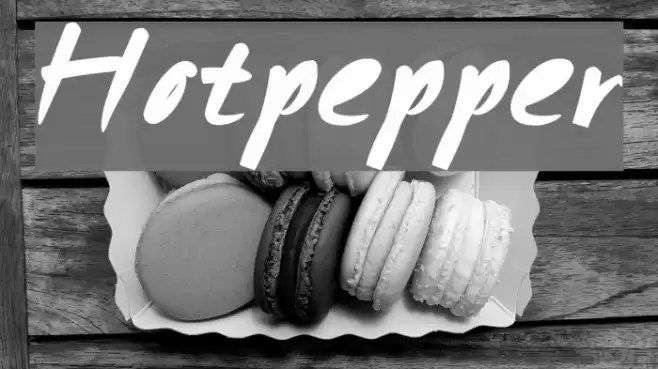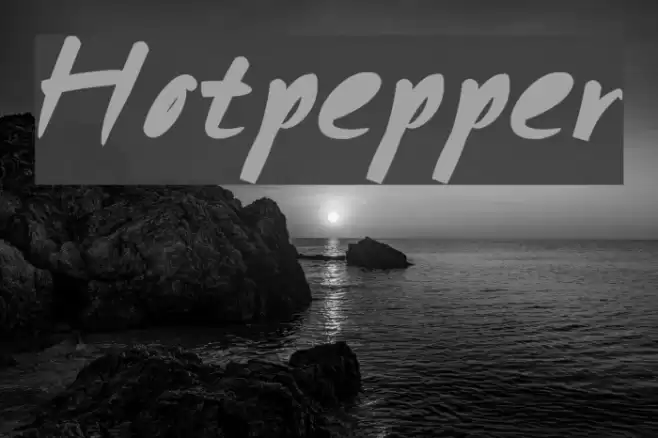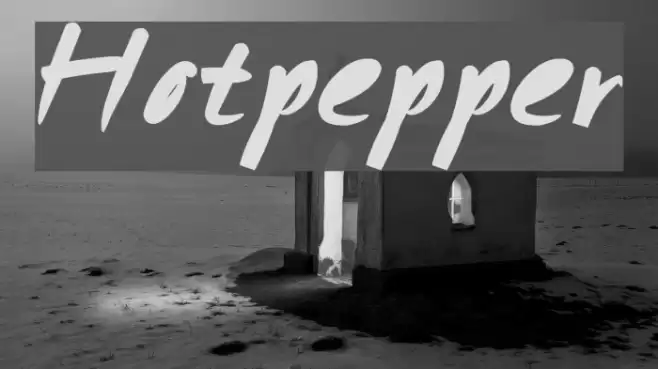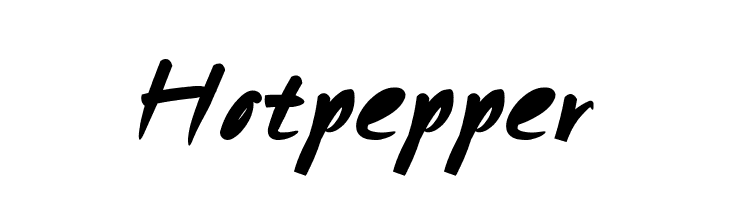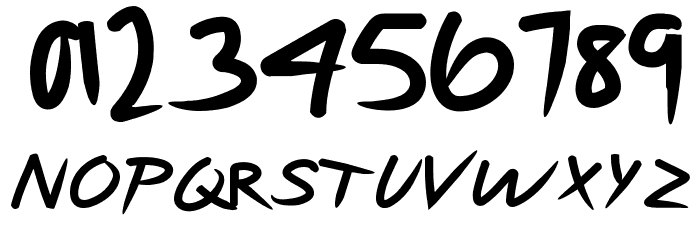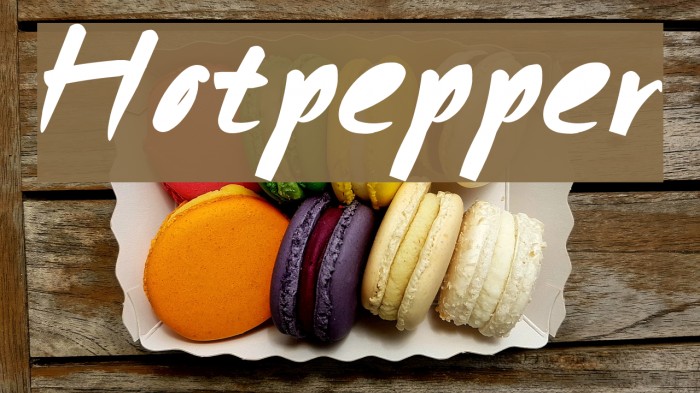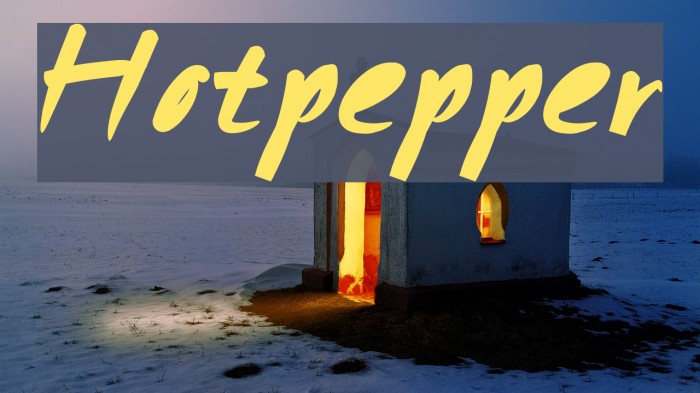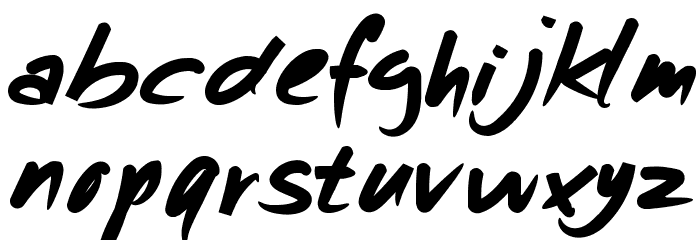
Hotpepper Font
Hotpepper Description
This font features a dynamic and energetic script style, characterized by its fluid and cursive letterforms. The strokes are bold and expressive, giving a sense of movement and flair. Each character is uniquely crafted with a slight slant, enhancing its handwritten appearance. The uppercase letters are slightly more angular, while the lowercase letters maintain a smooth and rounded form. The numerals are consistent with the overall style, offering a playful yet legible design. Special characters are integrated seamlessly, maintaining the font's cohesive look.
A bold, cursive script font with dynamic and expressive strokes from Uncategorized fonts.